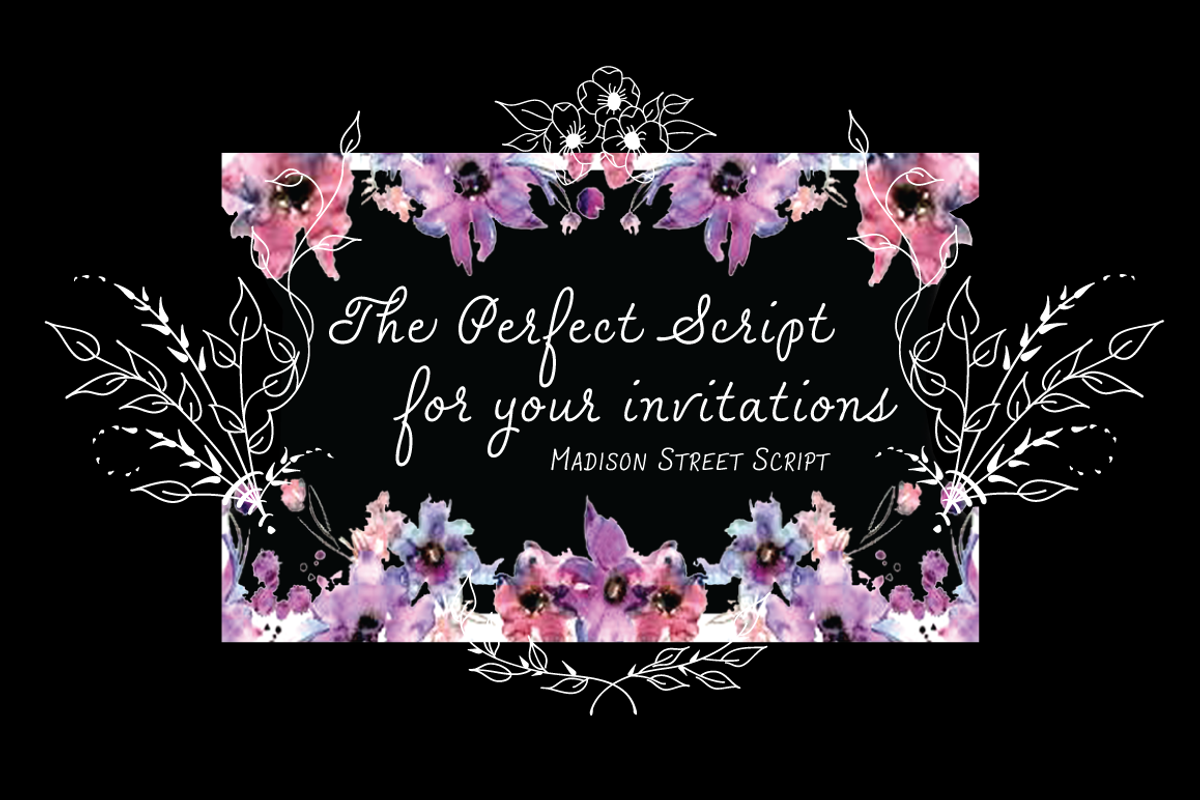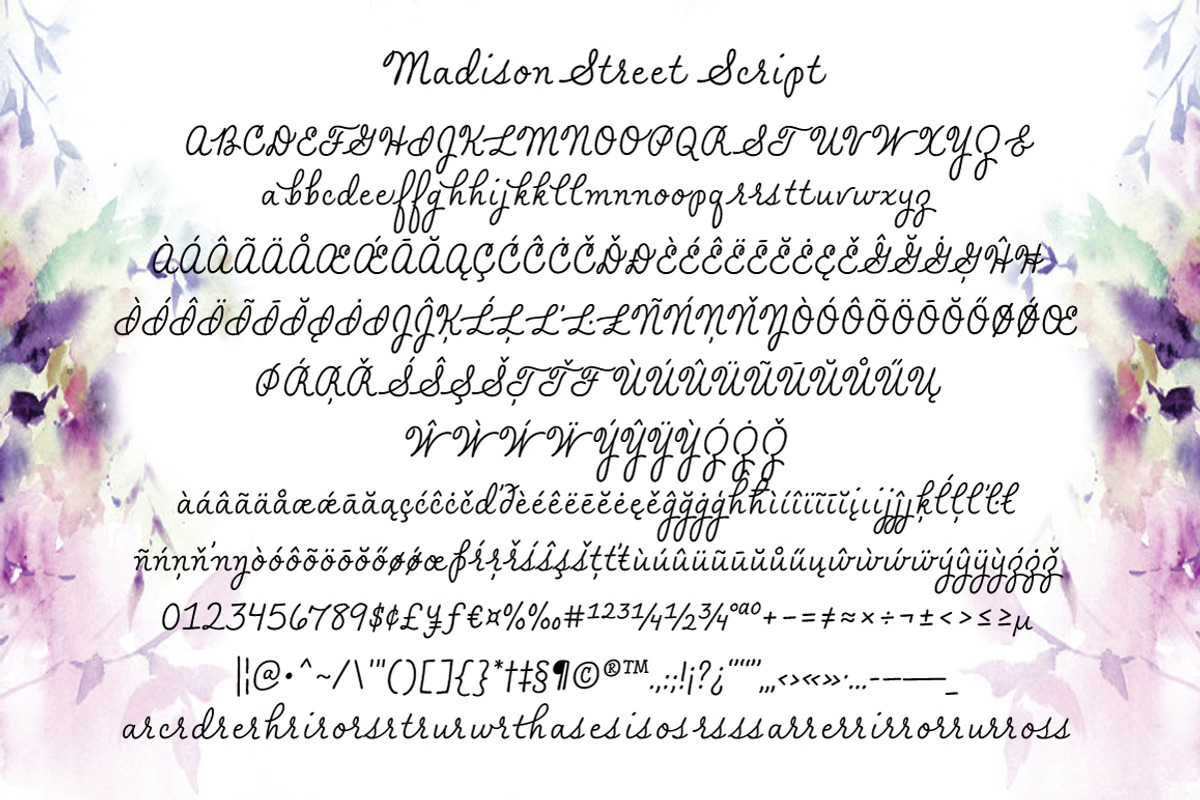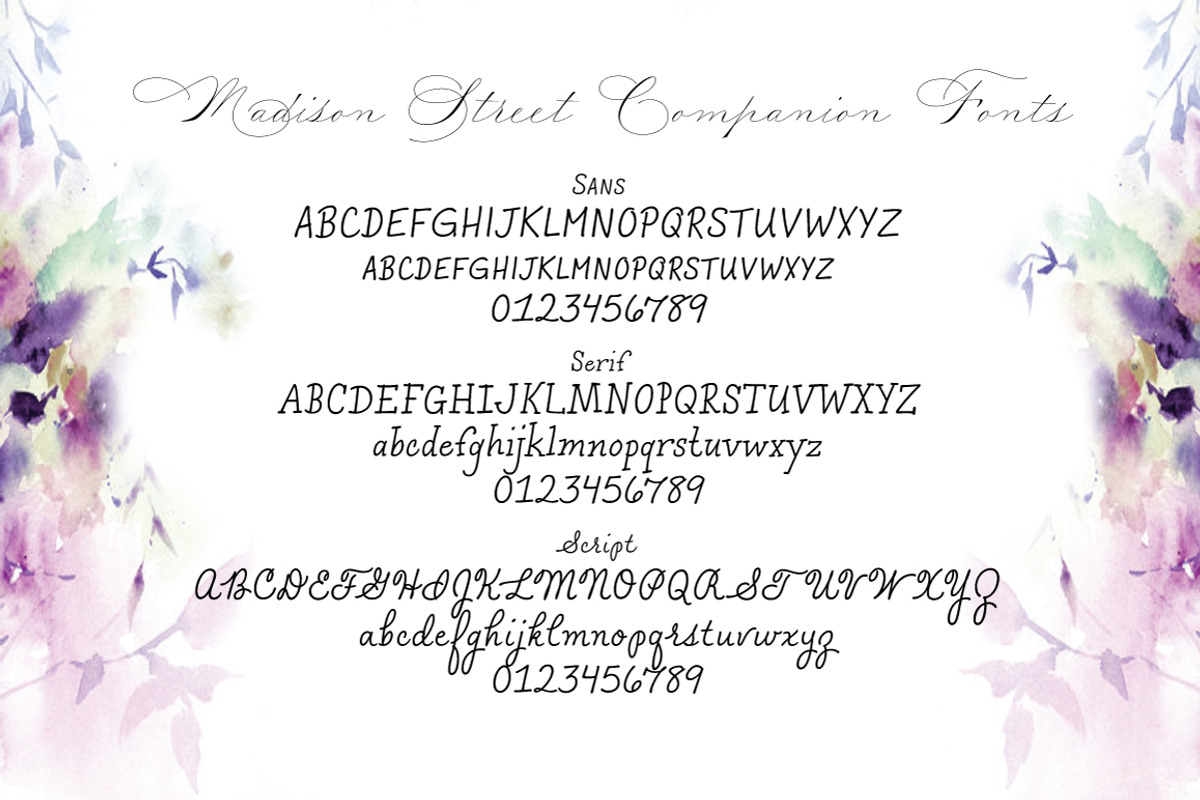
Madison Street Script
Madison Street Script is one of three companion text fonts for Madison Street Family fonts. It is based on Elaina DeBoard's printing script style and pairs nicely with the Spencerian typefaces. It is a non-connecting, hand drawn italic script, with plenty of casual and friendly shapes! There are a handful of ligatures and initial and final glyph forms to help alleviate those more difficult letter combinations. And Madison Street Script can hold it's own when used for invitations, place cards and similar announcement material.